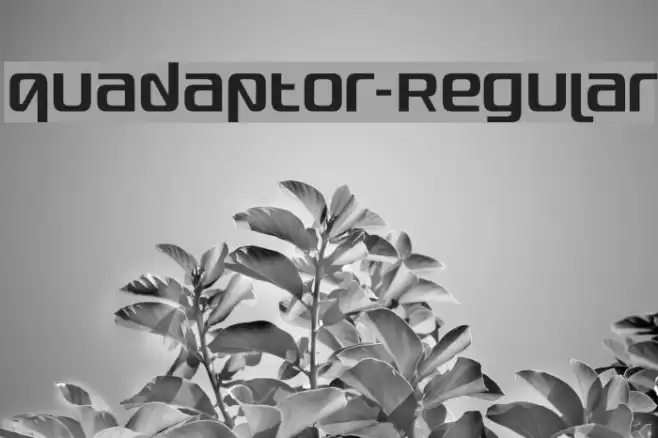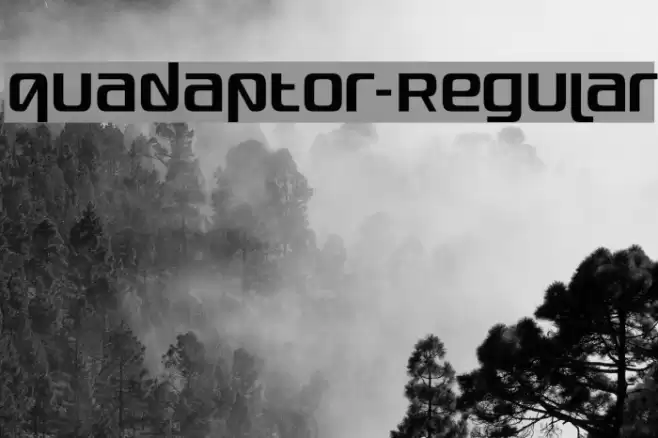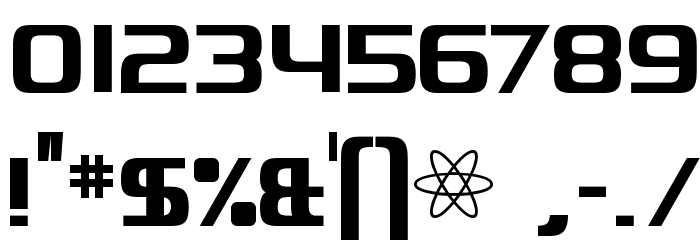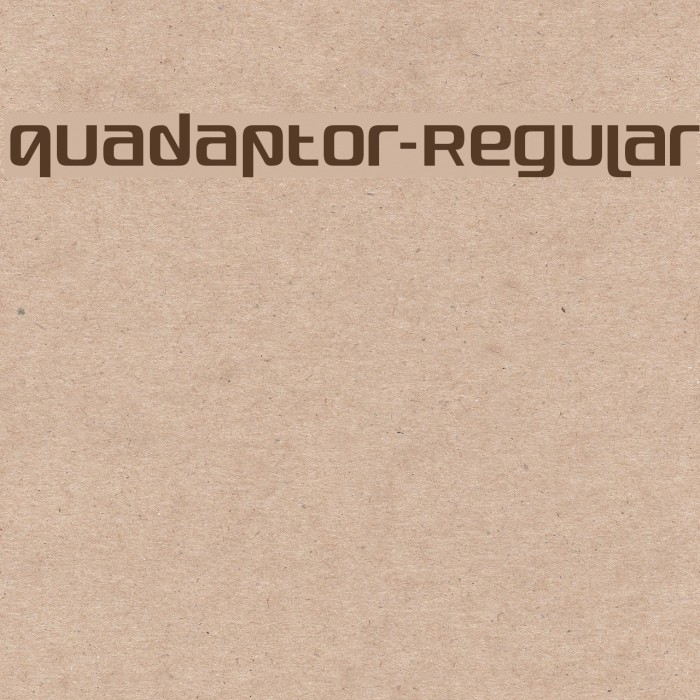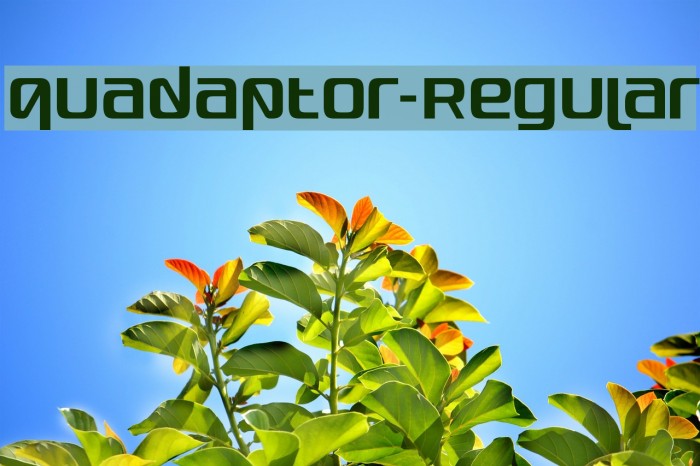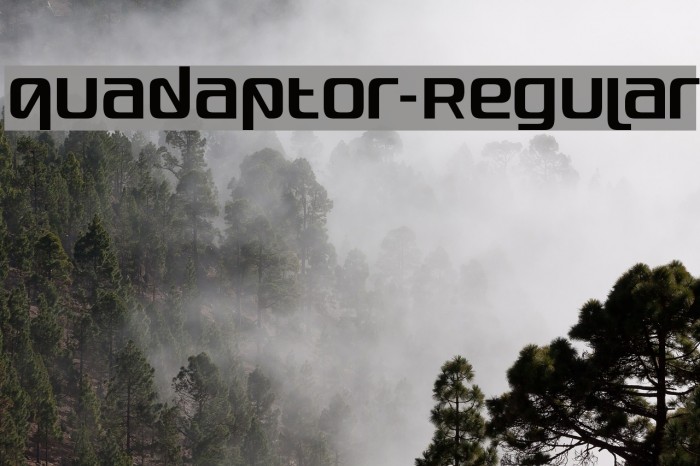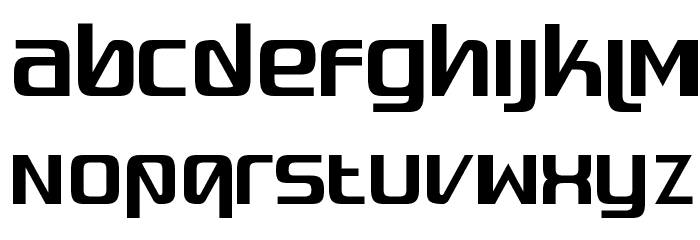
Quadaptor-Regular Font
Quadaptor-Regular Description
This font features a futuristic and geometric design, characterized by its bold and angular letterforms. The characters have a distinct, modern appearance with a consistent stroke width, giving it a uniform and structured look. The uppercase and lowercase letters share a similar style, maintaining a cohesive visual identity. The numerals and special characters are designed to complement the alphabet, with unique shapes that enhance the overall aesthetic. This font's design is both striking and versatile, suitable for a variety of creative applications.
A bold, futuristic font with geometric and angular letterforms from Uncategorized fonts.
- Proposed Projects: Ideal for technology branding, sci-fi themed projects, modern posters, and digital interfaces.